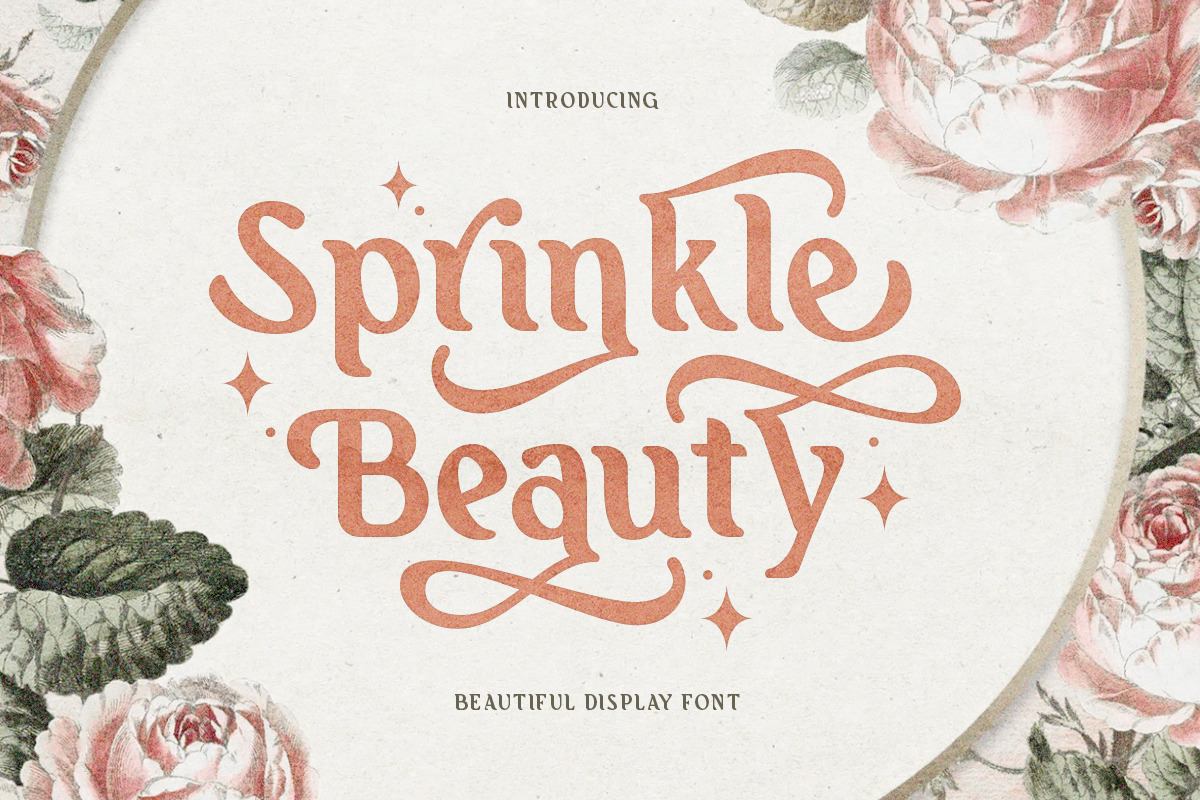
Sprinkle Beauty - Display Bold Font Free Download
You must purchase this font for commercial use. However, you can download Sprinkle Beauty - Display Bold Font Free Download for testing purposes. Sprinkle Beauty is a bold, eye-catching display font that combines strong letterforms with a playful, modern aesthetic. Perfect for headlines, posters, branding, packaging, and social media content, this font adds a fun yet professional touch to any project.
With its thick strokes and striking appearance, Sprinkle Beauty makes your text stand out, making it ideal for projects that need to capture attention. Whether you're designing a promotional campaign, a logo, or an event flyer, this font brings a sense of energy and excitement to your typography.